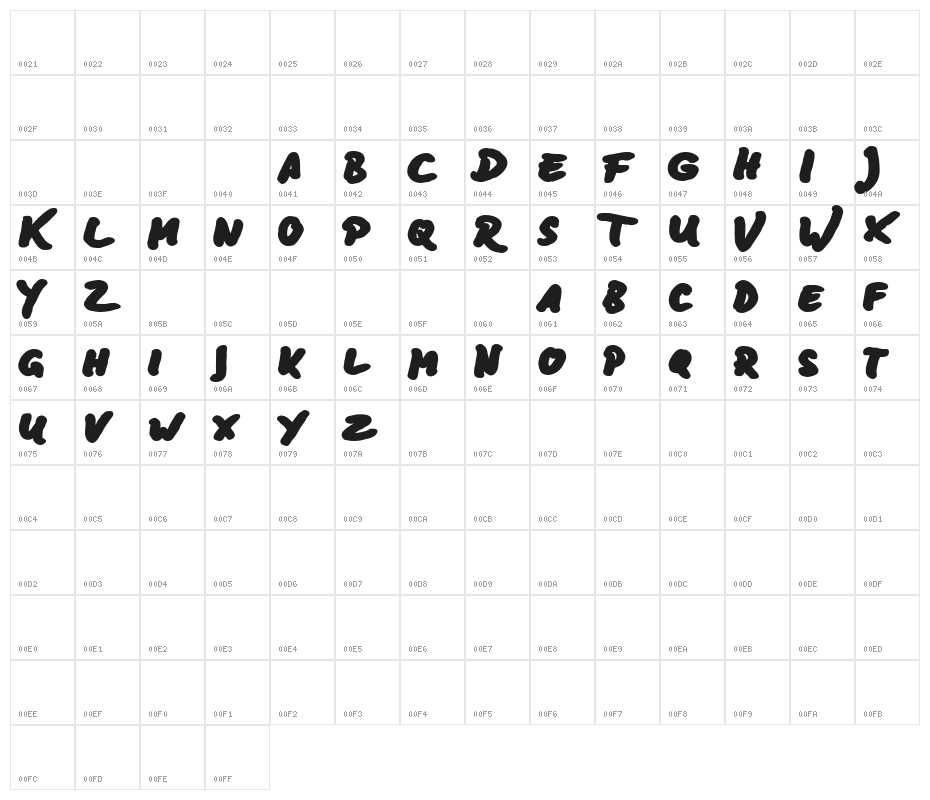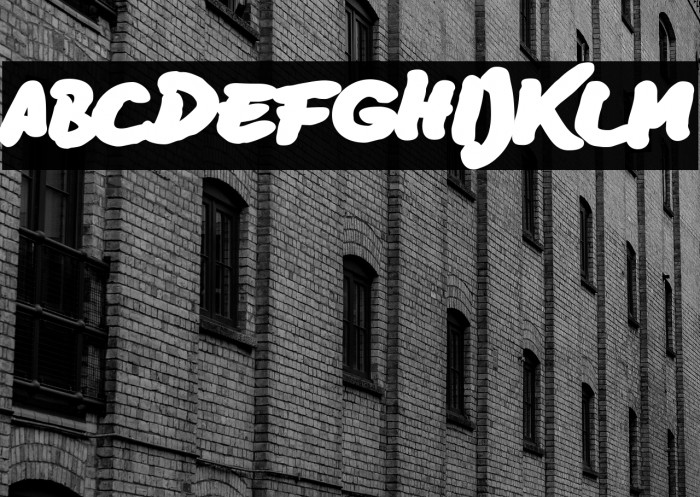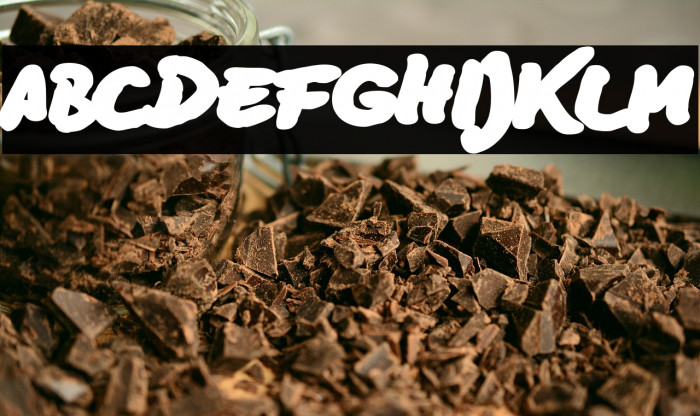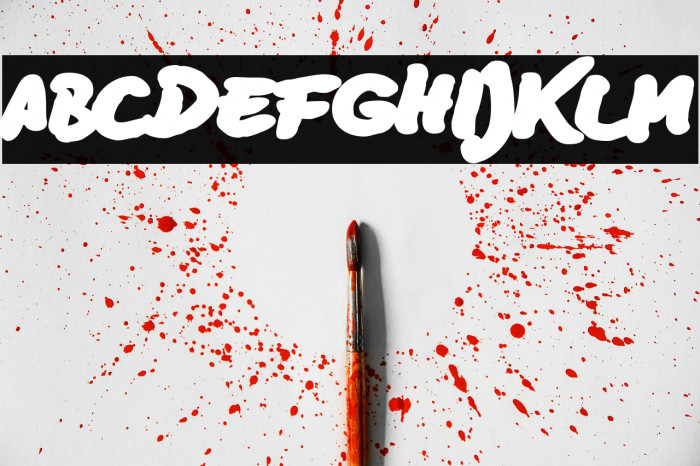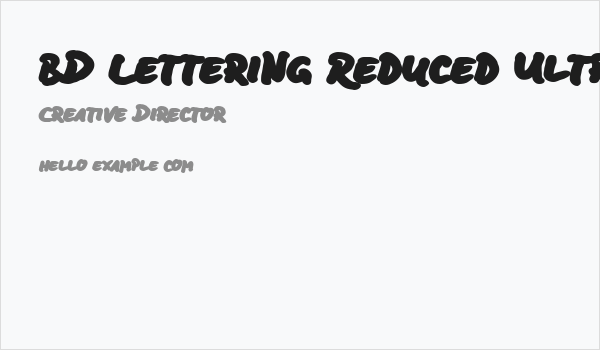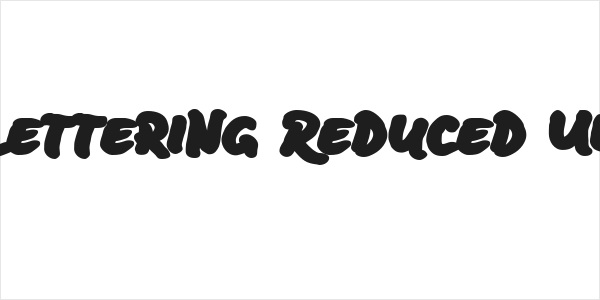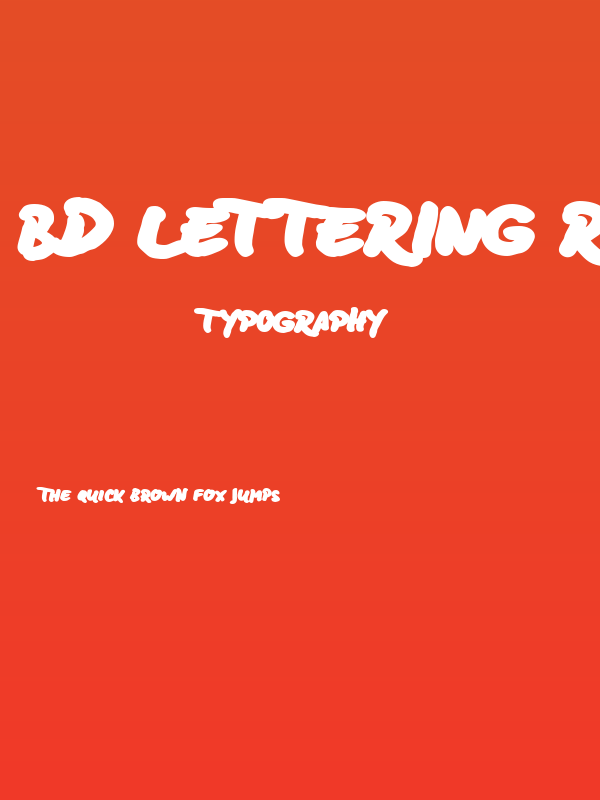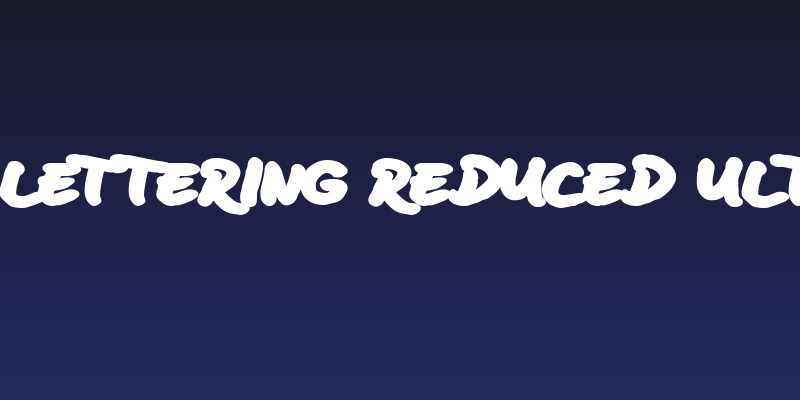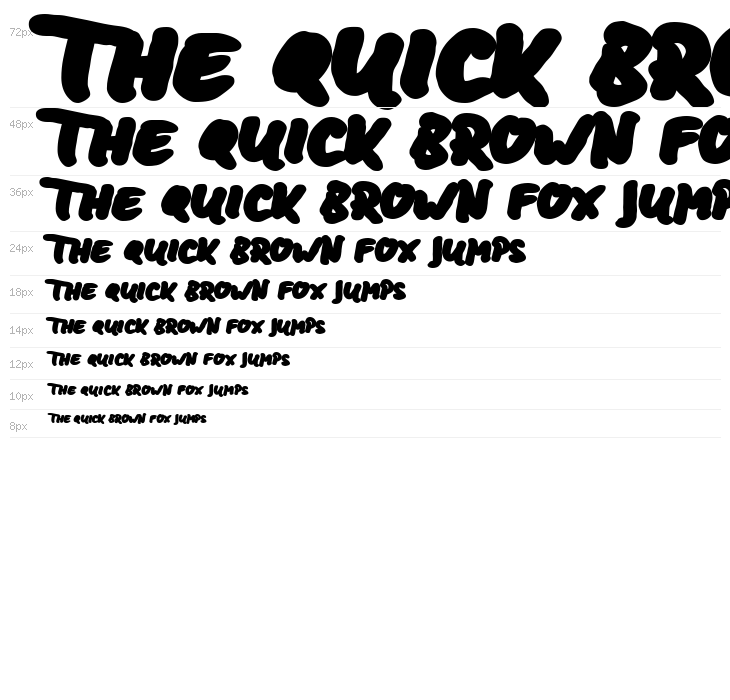
BD Lettering Reduced Ultra Font
BD Lettering Reduced Ultra Description
This font features a bold and expressive style with thick, rounded strokes that convey a sense of energy and movement. The letters are closely spaced, creating a compact appearance that enhances its dynamic look. The uppercase and lowercase characters maintain a consistent weight, contributing to a cohesive and unified design. The font's playful and informal nature makes it suitable for creative and artistic projects. Its boldness ensures high visibility, making it ideal for attention-grabbing headlines or titles. The overall style is modern and decorative, with a touch of whimsy that adds character to any design.
| Overall Style | Modern, Decorative |
| Proposed Projects | Ideal for posters, logos, branding, and any design requiring a bold, artistic touch. |